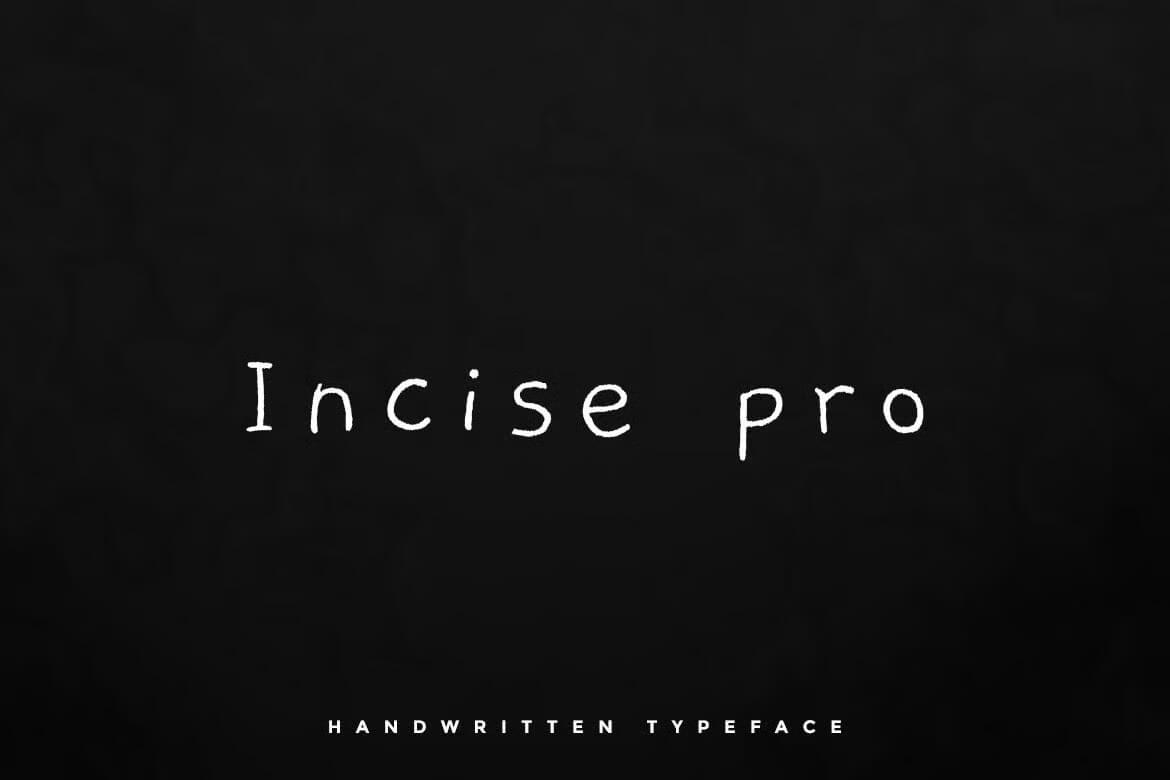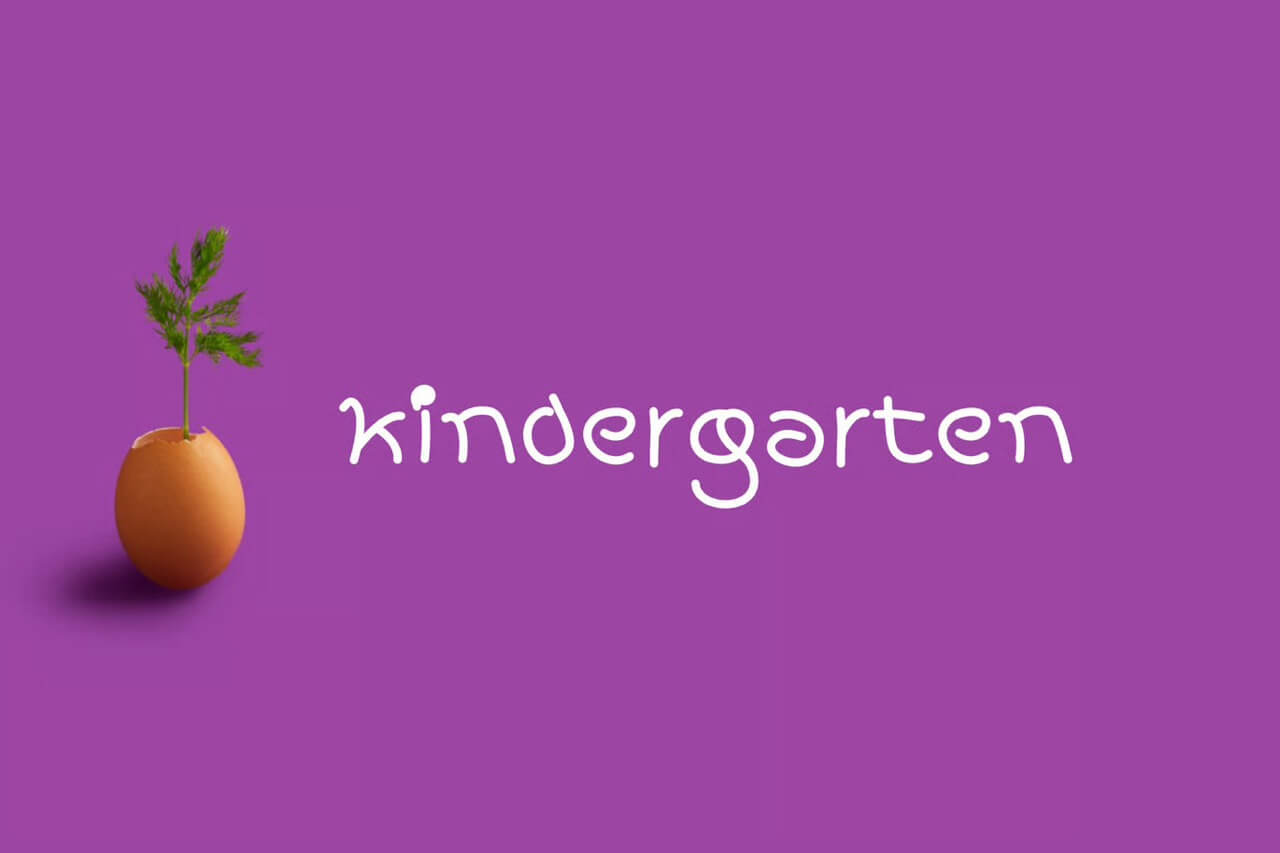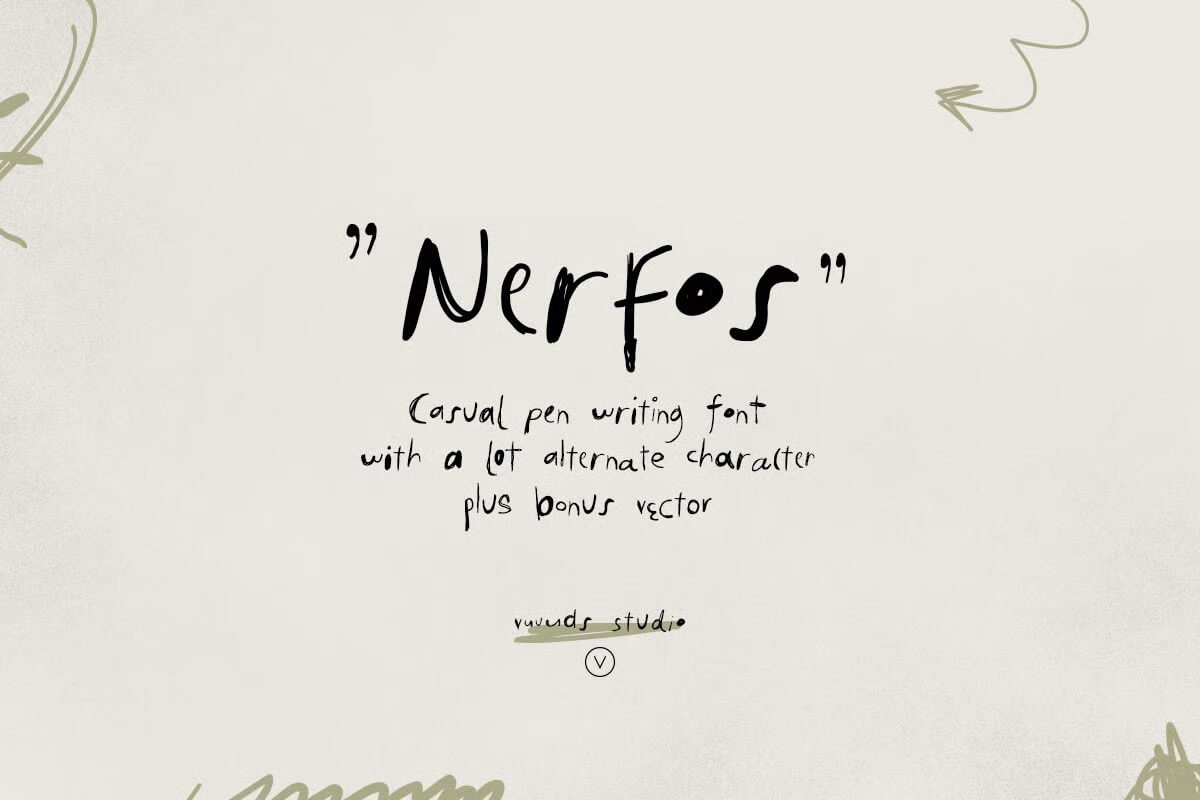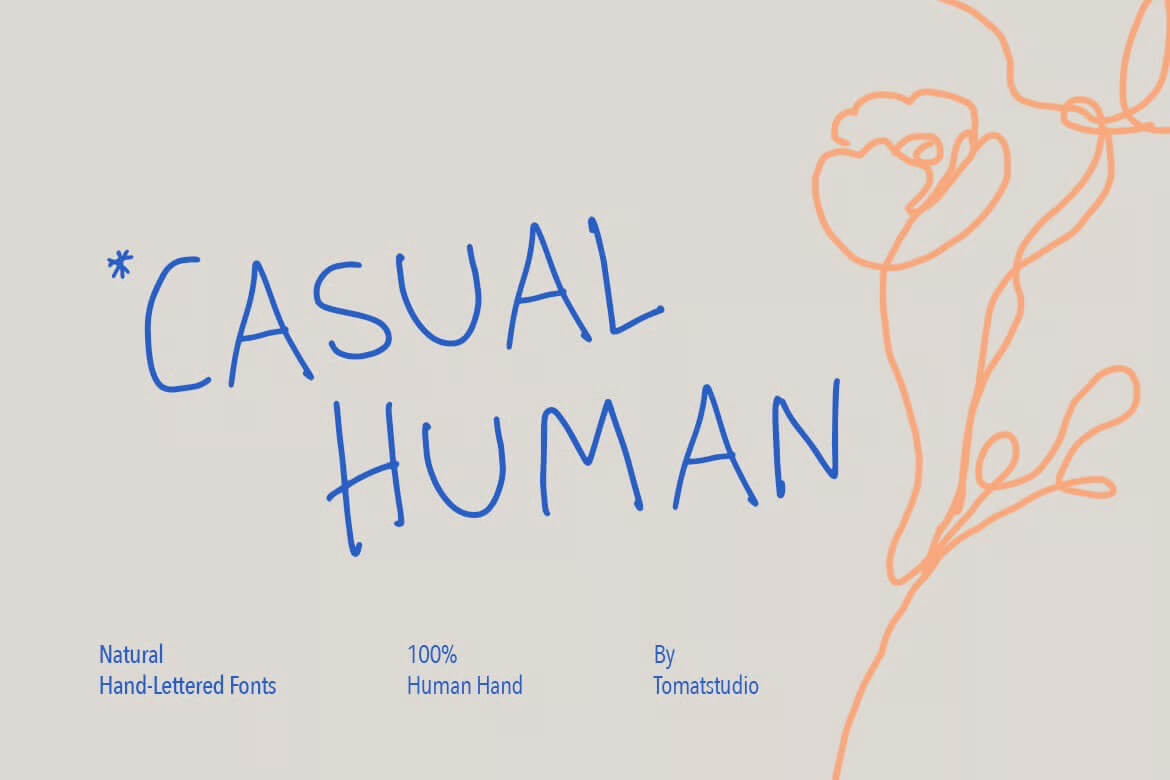
7 Fonts with Pencil | Pencil Fonts | Handwriting Fonts
Looking for fonts with pencil and pencil fonts? This article will walk you through why they work, how to use them, and the best options available for download if you’re ready to add that imperfect-but-perfect look and feel to your next project.
Why Do Pencil Fonts and Handwriting Fonts Have Such Strong Appeal?
Here’s the thing: we live in a world that’s more digital than ever. Clean sans serif typefaces dominate websites, apps, and brand systems.
But when you swap that out for handwriting or a handwritten font, it suddenly feels… different. Human. Personal.
That’s the appeal. Pencil fonts bring a personal touch, adding a casual, whimsical flair to designs that might otherwise feel stiff.
The sketch-like strokes, uneven weight, and tiny imperfections give off a distinctive look and feel that’s impossible to replicate with cold, geometric lines. It feels like someone sat down with pen and paper and left their mark.
And let’s be honest, when you’re designing for an audience, capturing that human touch in your typography is often what makes people stop scrolling and pay attention.
1. Incise pro – Handwritten typeface + Webfont
White handwritten font "Incise pro" on a black background with "HANDWRITTEN TYPEFACE" written below. No landmarks or historical buildings visible.
If you are looking for a casual yet stylish font, Incise Pro is what you should get. It has this handwritten vibe that looks effortless. It is thin, clean and playful, great to use for signatures, logos or slim headings. Use it for minimalistic designs.
2. Fear Fluid Kindergarten
A small plant grows from an eggshell on a purple background with "kindergarten" written in white playful font.
This font feels playful and full of personality, almost like it was doodled with a pencil during a fun daydream. Its swirly, hand drawn look makes it perfect for kids projects or anything that needs a lighthearted and creative touch.
3. Nerfos Font
The image showcases "Nerfos," a casual pen-style font with alternate characters and bonus vector, by Vuuuds Studio.
Nerfos has a playful handwritten vibe that feels casual yet a little edgy, almost like quick pen strokes on paper. It is experimental and full of personality, with unique alternates that make designs feel more natural, creative, and fun to use.
4. Casual Human Fonts
Hand-lettered blue text "Casual Human" with an orange abstract floral design. Features natural fonts by Tomatstudio and emphasizes human craftsmanship.
This font feels like it was written straight from a notebook with a relaxed and playful vibe. It has that imperfect hand drawn look that makes designs feel warm and approachable while still keeping things fun and natural.
5. Annette Bradford – Ballpoint Script
Elegant design featuring cursive text "Annette Bradford," a thoughtful person, and a cozy interior photo. Includes bonus doodle illustrations on textured background.
This font has a smooth handwritten feel that looks like it was created with a ballpoint pen. It feels personal and stylish, making it perfect for logos, invitations, or even quotes when you want something natural yet elegant and easy to read.
6. Sweethand
A grayscale image showcases a handwriting font named "sweethand," overlaid on a background of a person’s outstretched hand with water droplets.
Sweethand has that easygoing handwritten feel that instantly makes anything look more personal and warm. It is playful without trying too hard and works perfectly for notes, invites or quotes where you want a relaxed and approachable vibe.
7. Paintline
Notebook displaying "Paintline" font design by Aarley Kaiven. Features simple, hand-lettered typography on lined pages.
Paintline has that relaxed hand painted vibe that feels both casual and creative. It looks like something you’d sketch out with a marker, making it perfect for invitations, posters or headlines when you want personality to shine through effortlessly.
What Makes a Script or Scribble Font Different From Standard Typefaces?
Fonts are everywhere, on signs, screens, and in every graphic we consume. But script fonts, scribble fonts, and handwriting fonts break the pattern.
Instead of aiming for flawless alignment and perfectly balanced letters, they mimic real strokes, like ink gliding across a page.
That imperfection is their strength. A scribble font can bring out the playful side of a design project, making even digital work feel hand-drawn.
Script fonts often resemble cursive handwriting, with strokes flowing smoothly between letters, giving your designs a touch of sophistication while keeping a casual, approachable tone.
Think of it like this: if traditional fonts are pressed suits, handwriting fonts are your favorite worn-in jeans. Both work. But each creates a totally different vibe.
Where Can You Find the Perfect Pencil Font for Your Design?
• Designers use real pen, ink, and handmade sketches to create authentic typefaces.
• Handwritten fonts add artistic flair, creativity, and a distinctive look to your work.
• Creative marketplaces act as your scribble box, filled with fonts to add to your toolbox.
• Always balance artistry with readability, especially for logos and invitations.
• Choosing the right typeface is about capturing emotion, not just filling space.